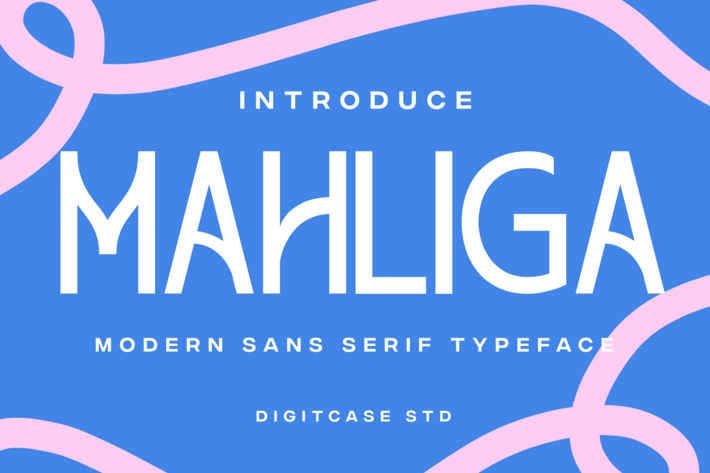
Mahliga - Modern Sans Serif Typeface
Mahliga - Modern Sans Serif Typeface excellent used for the manufacture quote text, logotype, header magazine, marketing material, advertisements, branding and many more.
Ligatures & Alternate
Numeral & Punctuations
* Multilingual Support